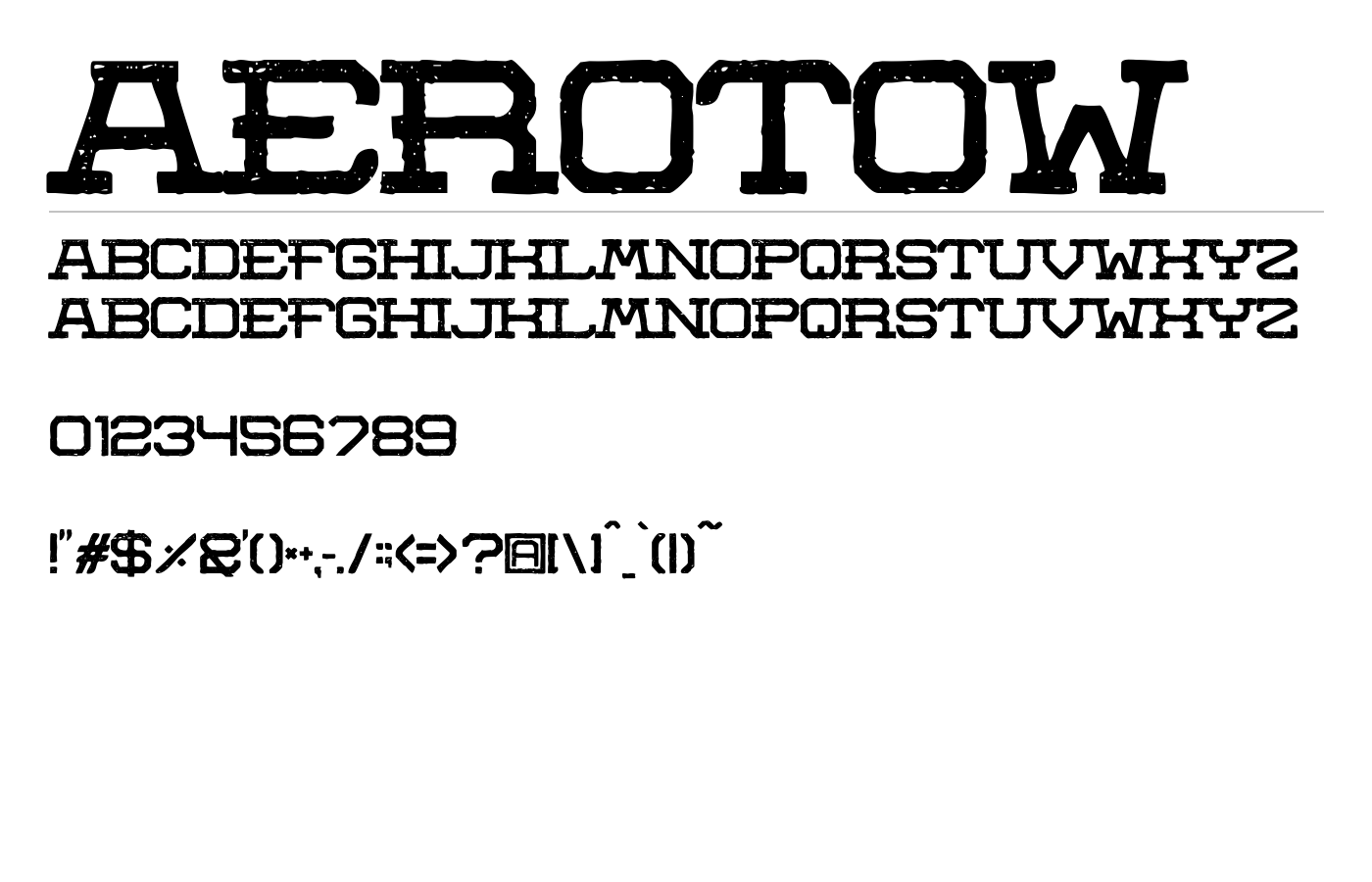
Aerotow is a bold, slab serif typeface with a strong industrial and vintage feel, characterized by its thick, blocky serifs and a distressed texture that adds a rugged, worn look. Its condensed, uppercase-only letterforms and uniform stroke weight make it ideal for impactful headlines, posters, and branding that seeks a mechanical, retro, or utilitarian vibe. This font works well for designs that want to communicate strength, reliability, and a touch of nostalgic toughness.
Aerotow Font
About Aerotow Font